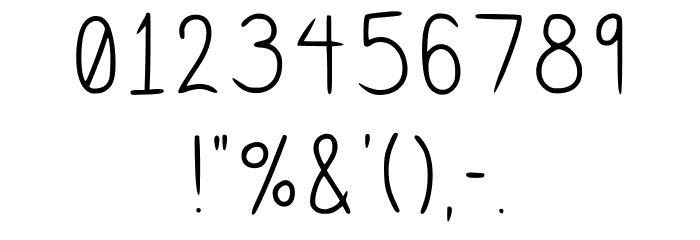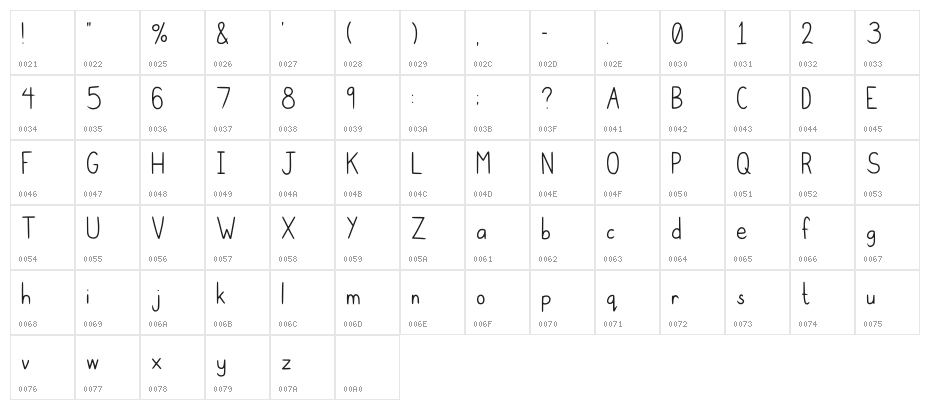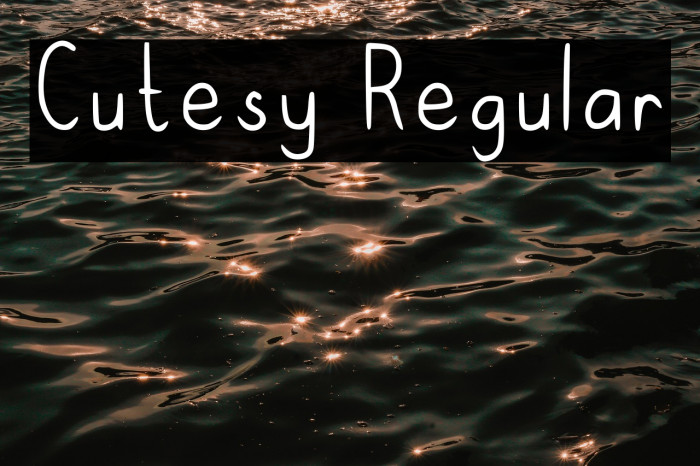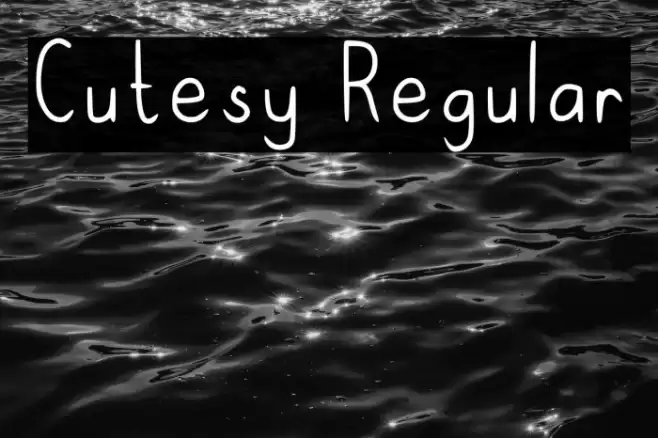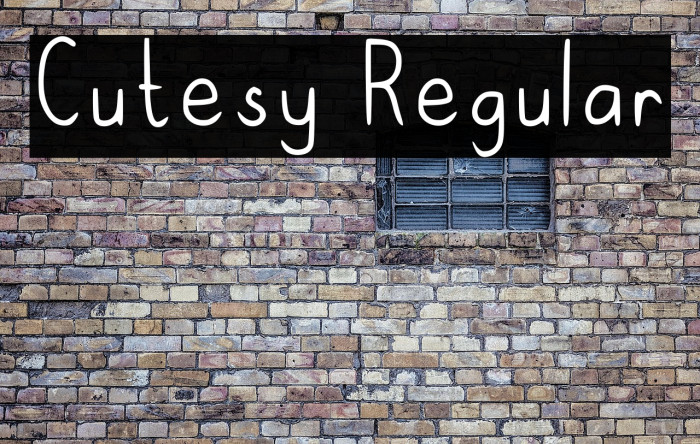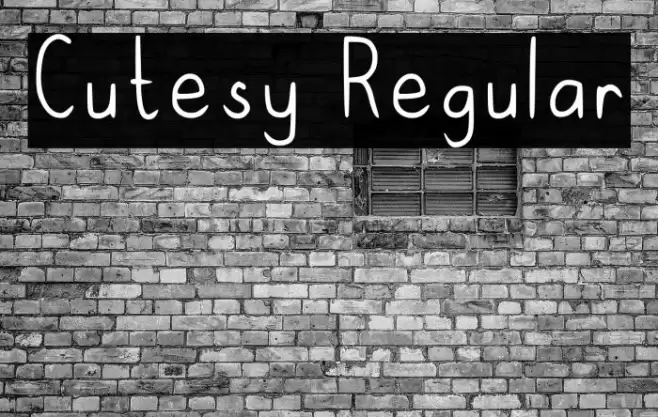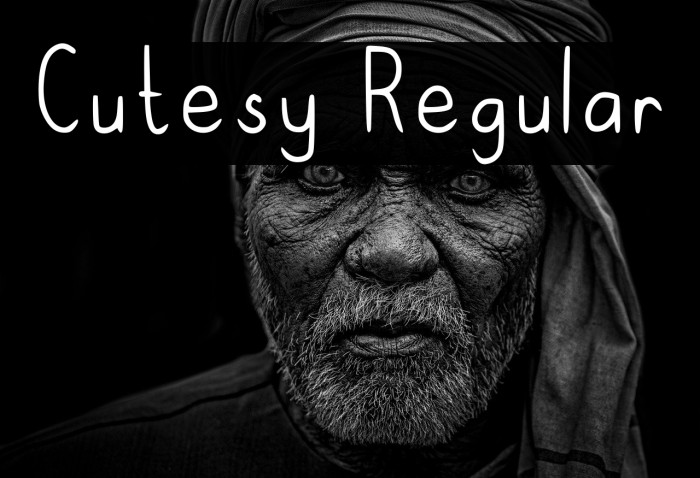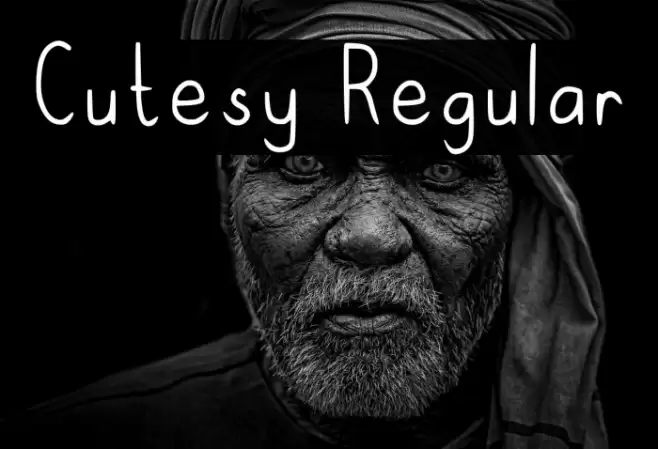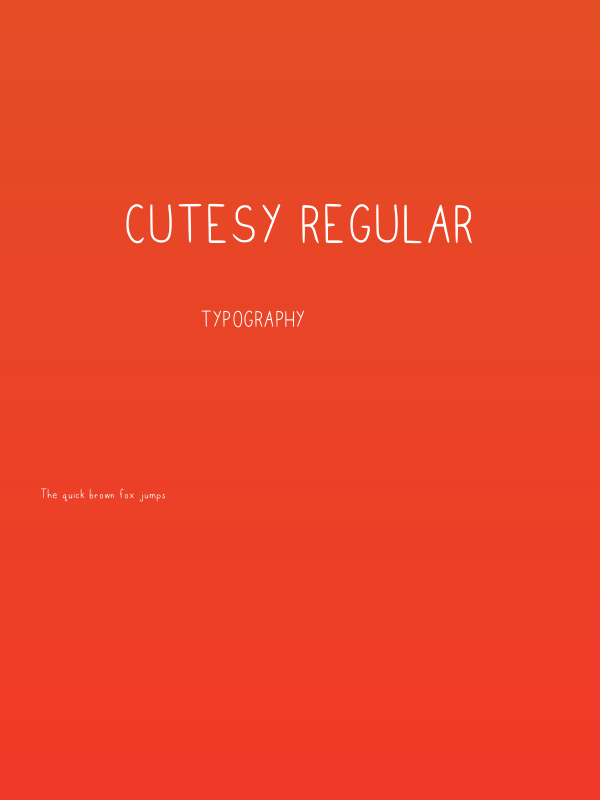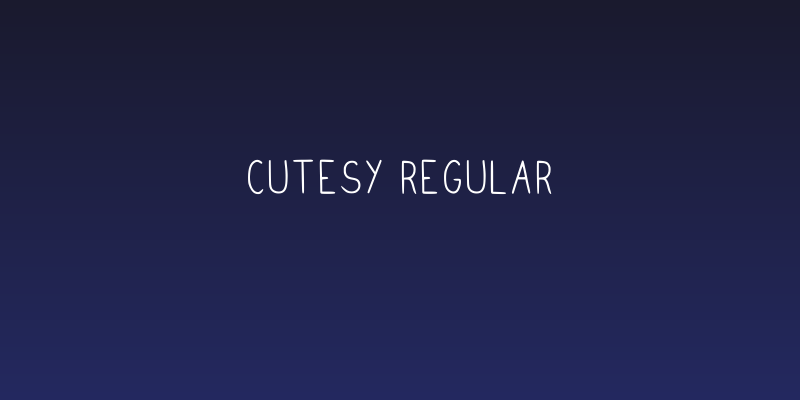
Cutesy Regular Font
Cutesy Regular Description
This playful and whimsical font features a hand-drawn style with a charming, informal appearance. The letters are slightly irregular, adding a personal touch that feels both approachable and friendly. The strokes are consistent in width, giving it a clean look while maintaining its casual vibe. The characters are well-spaced, ensuring readability even in smaller sizes. Its unique style makes it perfect for projects that require a touch of personality and creativity, such as children's books, greeting cards, or playful branding materials.
| Proposed Projects | Ideal for children's books, greeting cards, playful branding, and creative projects. |